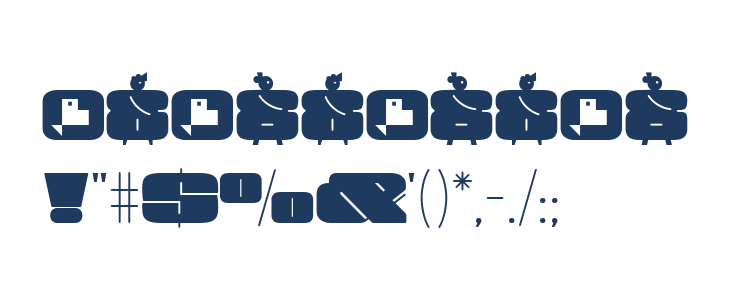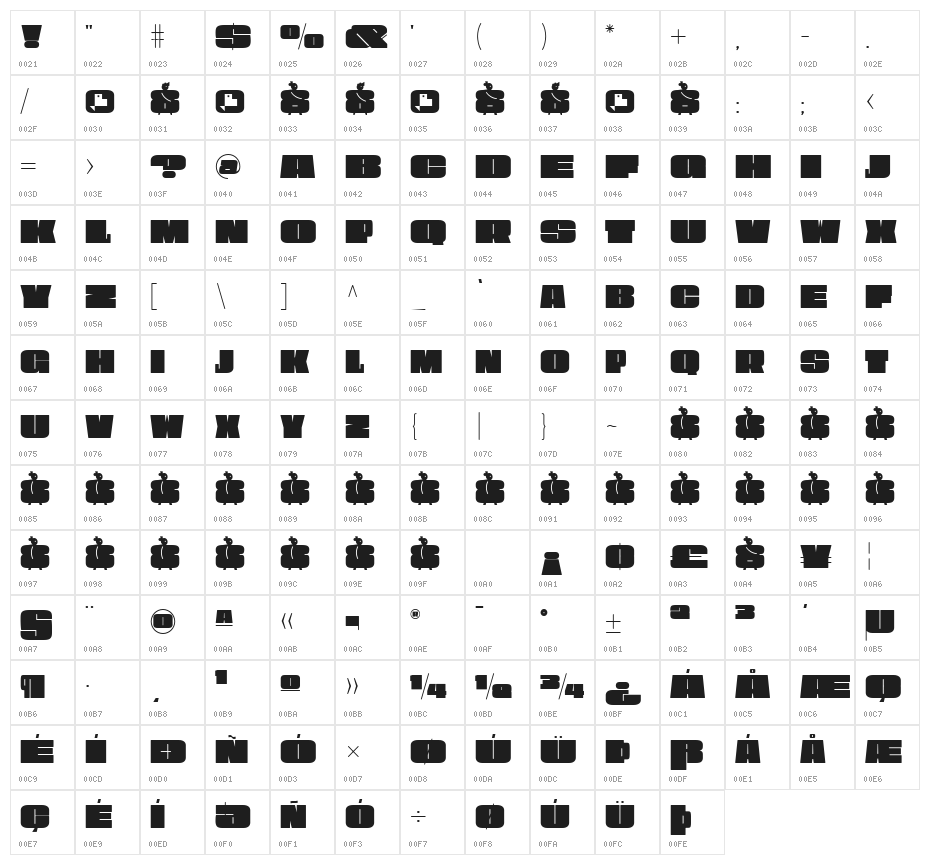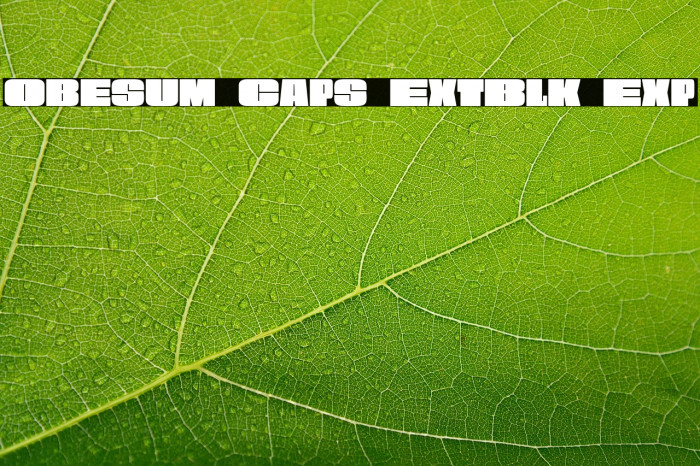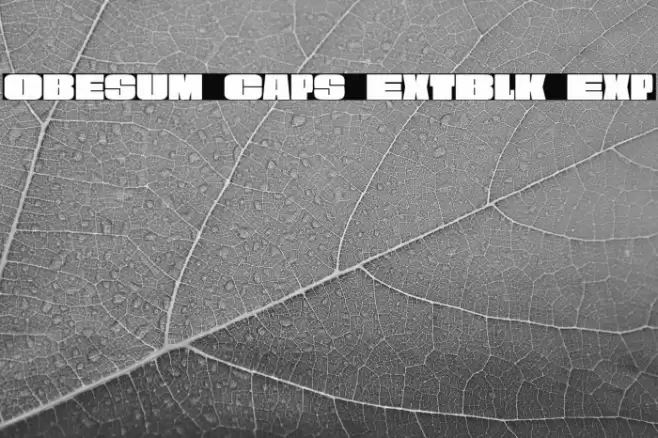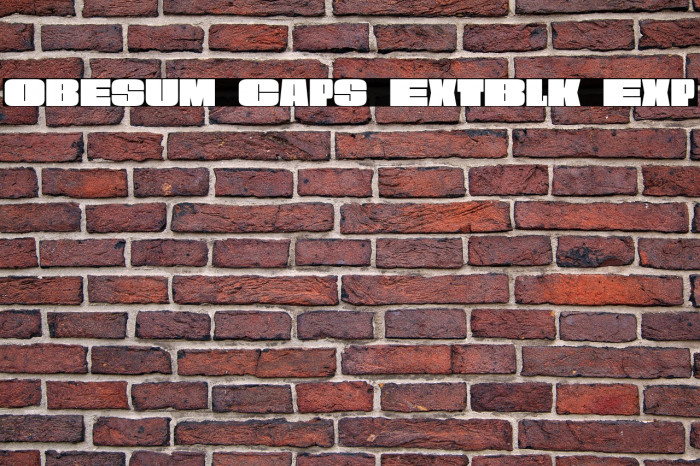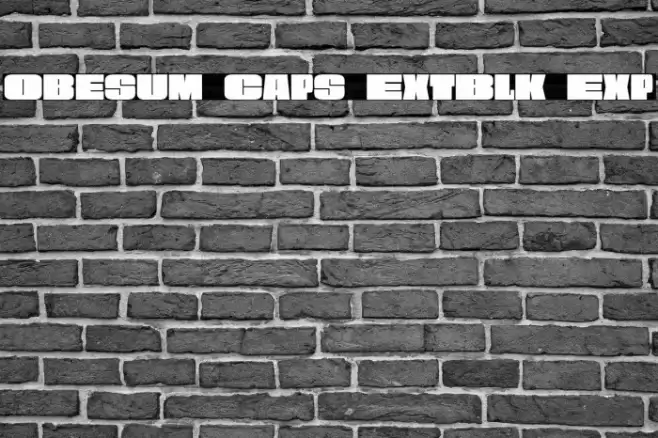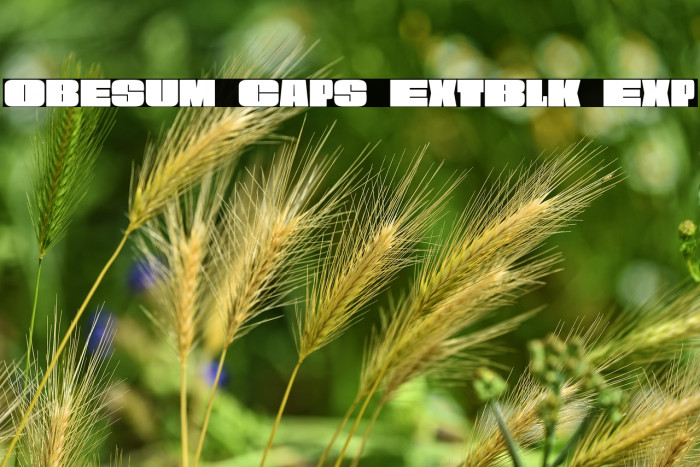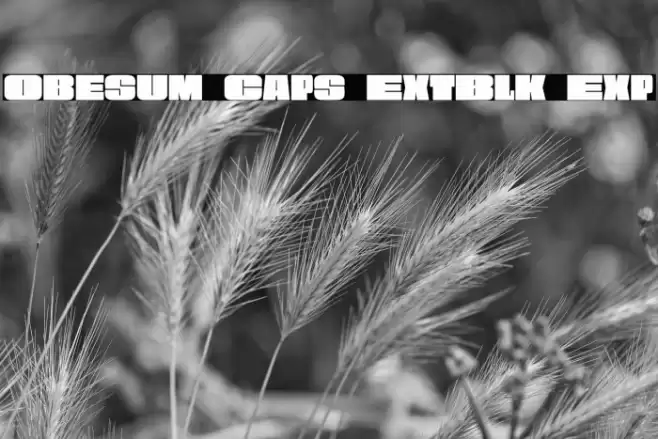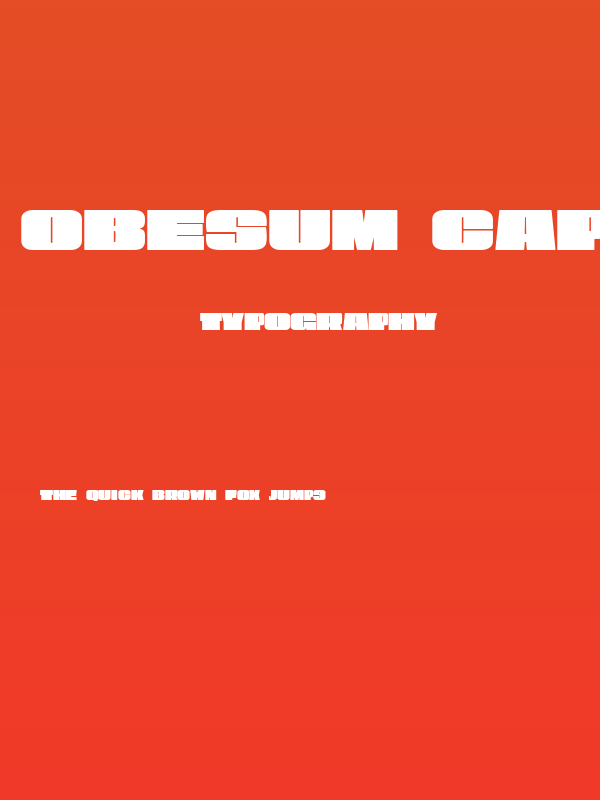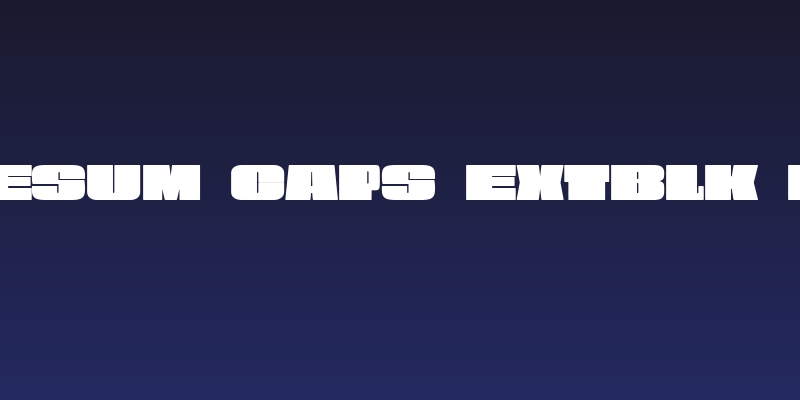
Obesum Caps ExtBlk Exp Font
Obesum Caps ExtBlk Exp Description
This font is characterized by its extremely bold and blocky appearance, with a strong emphasis on width and weight. The letters are uniformly thick, creating a powerful and impactful visual presence. The uppercase letters are particularly striking, with a consistent height and width that gives them a monolithic feel. The lowercase letters maintain the same boldness, ensuring uniformity across the typeface. The numbers and special characters are equally robust, designed to stand out and make a statement. This font is ideal for situations where attention-grabbing text is required, such as in headlines or logos.
| Proposed Projects | Ideal for headlines, posters, branding, and any project requiring a bold statement. |